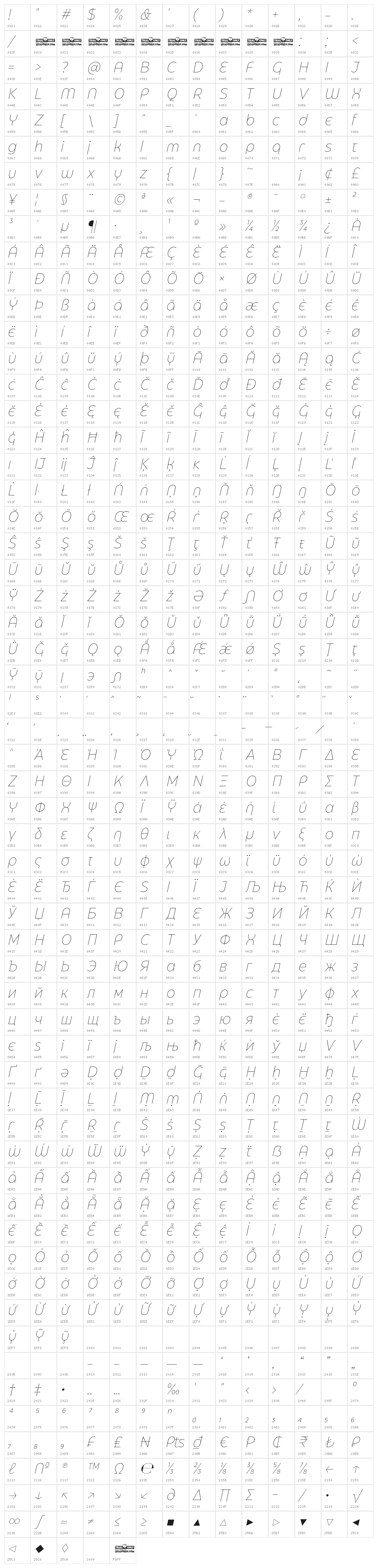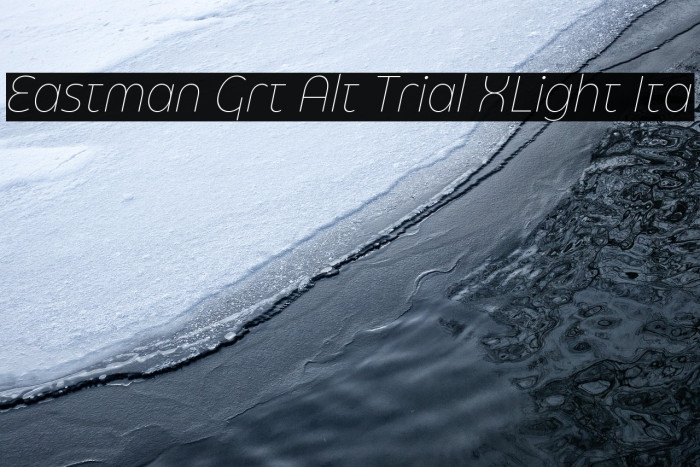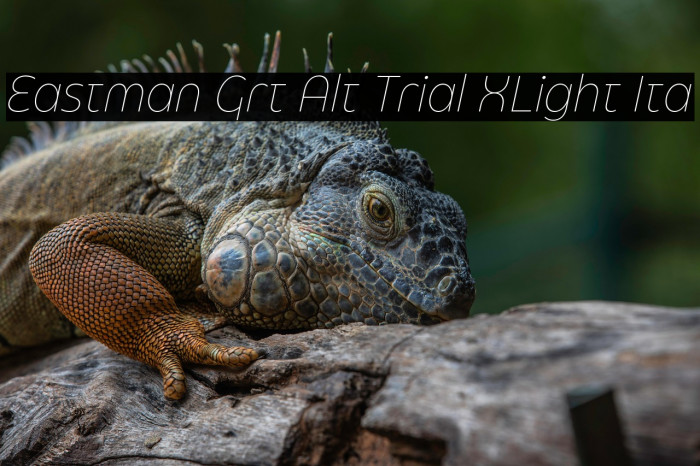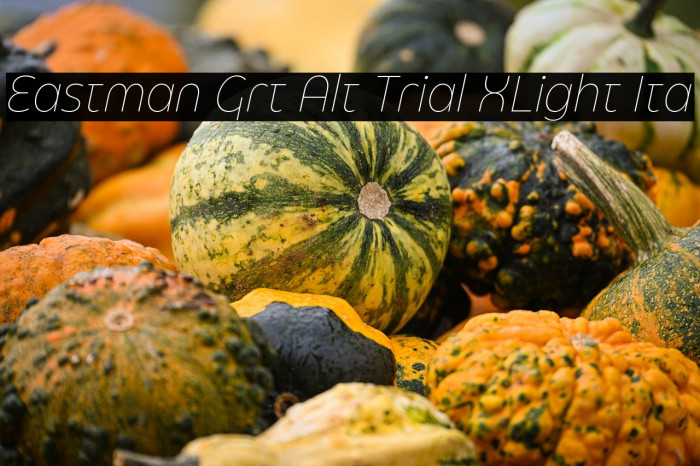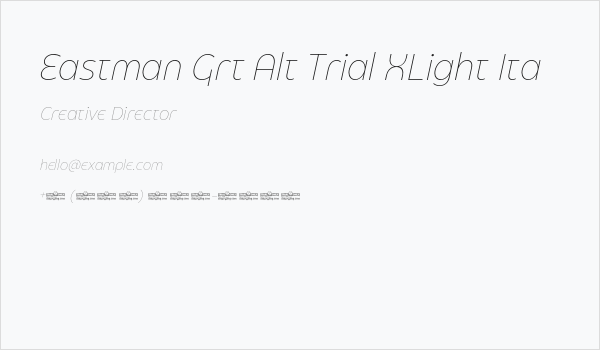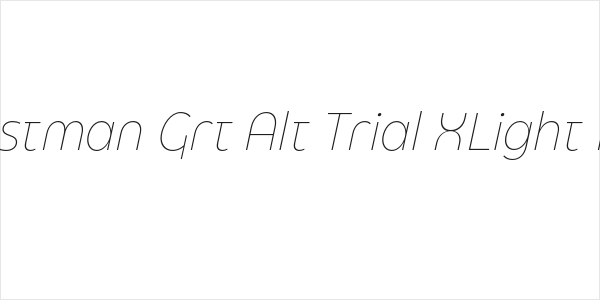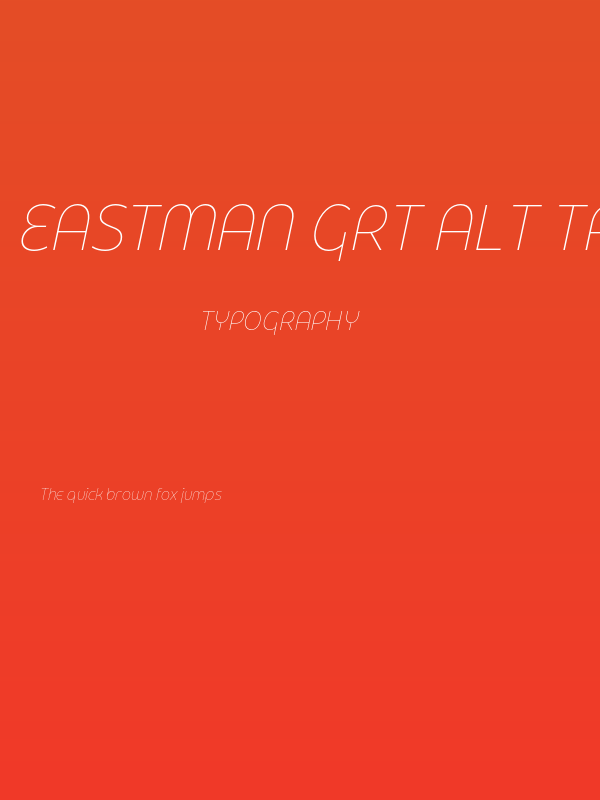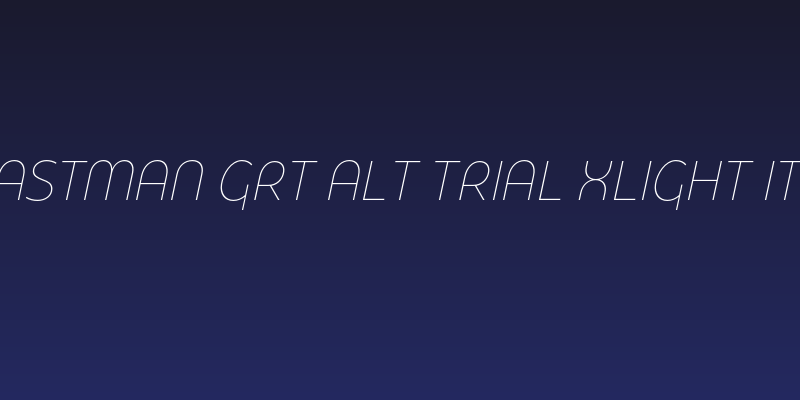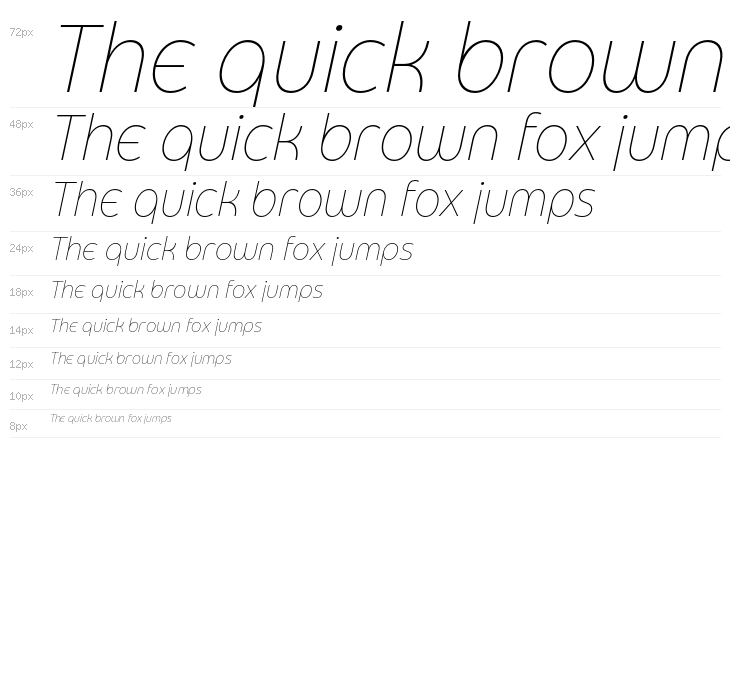
Eastman Grt Alt Trial XLight Ita Font
Eastman Grt Alt Trial XLight Ita Description
This font features a sleek and modern design with a distinctively light and airy appearance. The characters are elegantly curved, with a consistent stroke width that gives it a refined and sophisticated look. The uppercase and lowercase letters maintain a harmonious balance, making it suitable for a variety of design applications. The special characters are crafted with the same attention to detail, ensuring a cohesive visual experience. Its minimalist style and clean lines make it ideal for contemporary projects that require a touch of elegance.